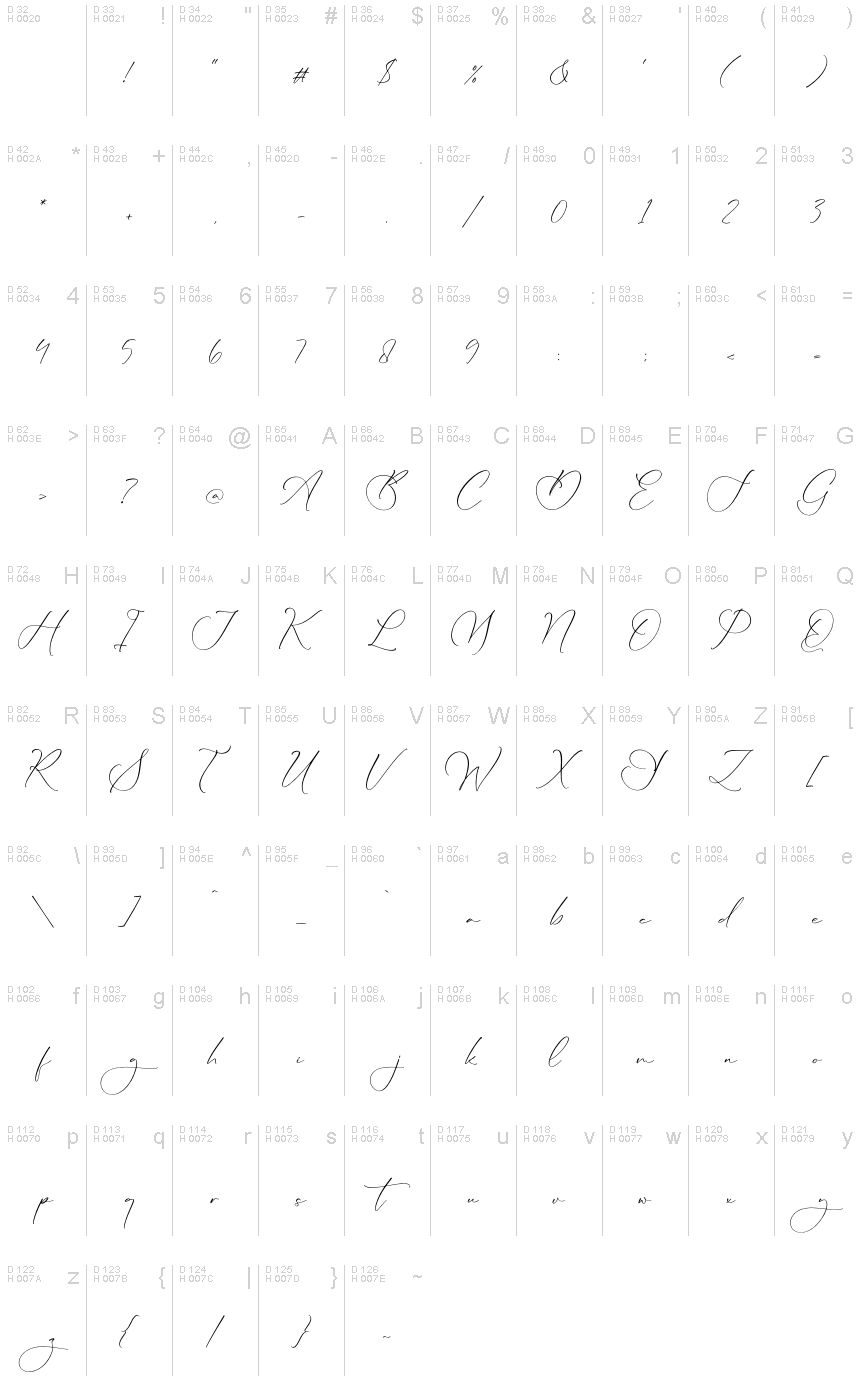
Lillywhite
Lillywhite, a captivating calligraphic font designed by Storytype Studio, exudes a delicate and refined elegance. Crafted with a light touch, this script-inspired typeface captivates with its graceful curves and seamless flow, creating a sense of effortless beauty. The intricate strokes and subtle variations in line weight evoke the timeless charm of handwritten expressions, making Lillywhite a captivating choice for projects seeking a touch of sophistication and charm.
Lillywhite's versatility shines through its adaptability to diverse design contexts. From elegant wedding invitations and luxurious product packaging to captivating editorial layouts and enchanting stationery, this font's unique character lends itself to a wide range of applications. Its refined aesthetic and ability to convey a sense of authenticity make Lillywhite an excellent selection for branding initiatives, creative campaigns, and personal expressions that aim to captivate and inspire.